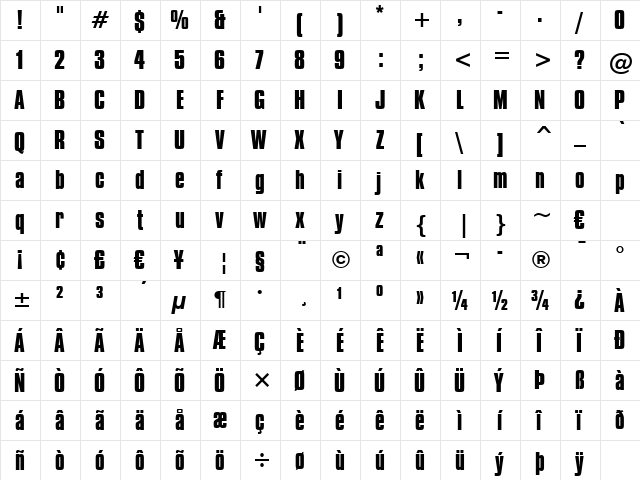
font100 Regular
Design Context for font100 Typeface
font100 offers clean, dependable letterforms without strong stylistic allegiance, making it a practical choice for designers who need flexibility.